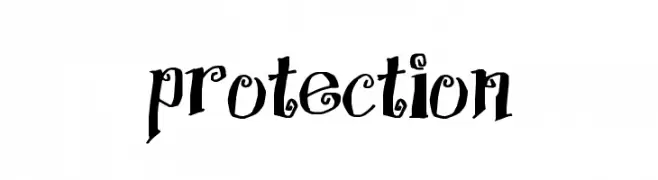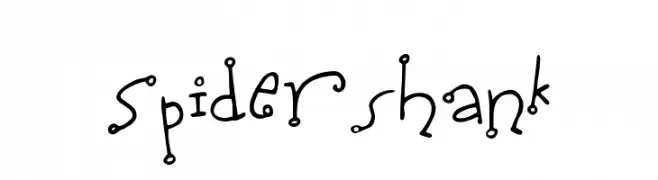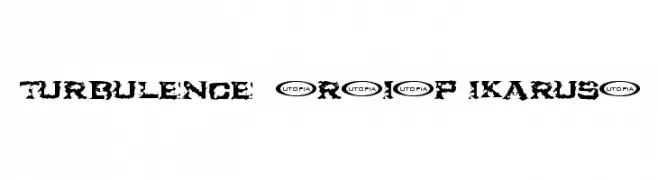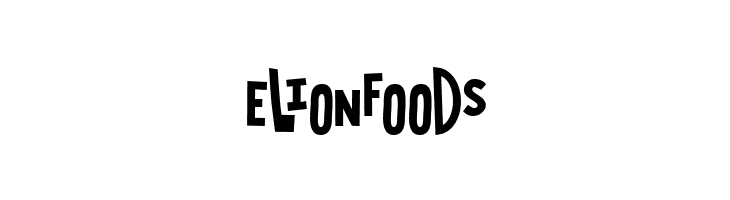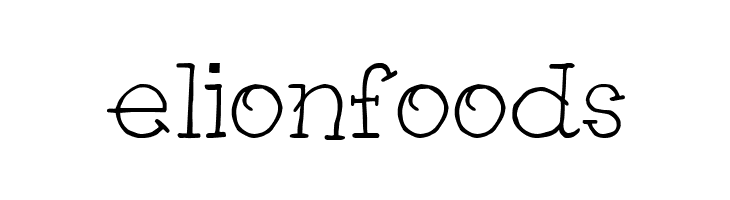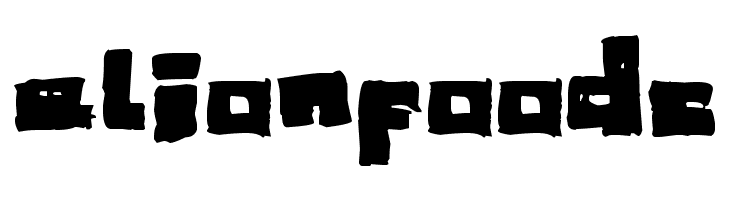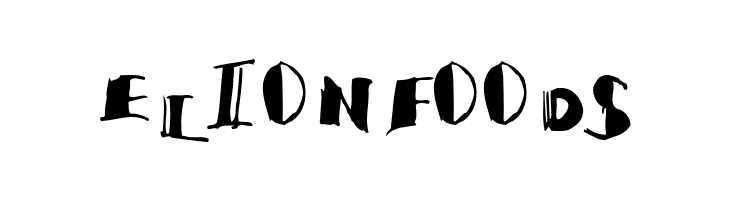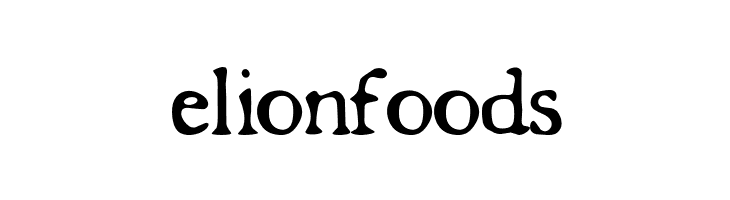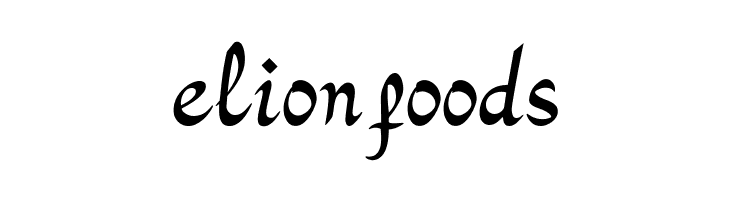
( Fonts by www.braineaters.com )
A whimsical, hand-drawn font with playful curves and irregular strokes.
( Fonts by Jacob Fisher - www.pizzadude.dk )
A whimsical, handwritten font with decorative curls and swirls.
( Fonts by Thomas O`Callaghan - www.tomocallaghan.co.uk )
A bold, sketch-like font with uneven, hand-drawn strokes.
( Fonts by Uddi Uddi )
A playful, whimsical font with irregular strokes and dot embellishments.
( Fonts by Anke Arnold - www.anke-art.de )
A whimsical, hand-drawn font with medium contrast and playful character shapes.
( Fonts by Utopia - www.daleharris.com )
A bold, distressed font with a chaotic, grunge style.